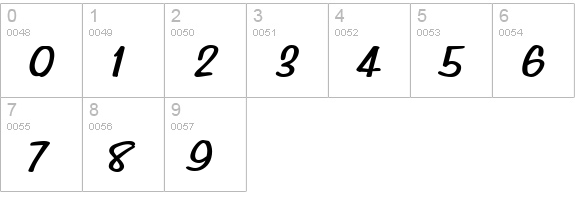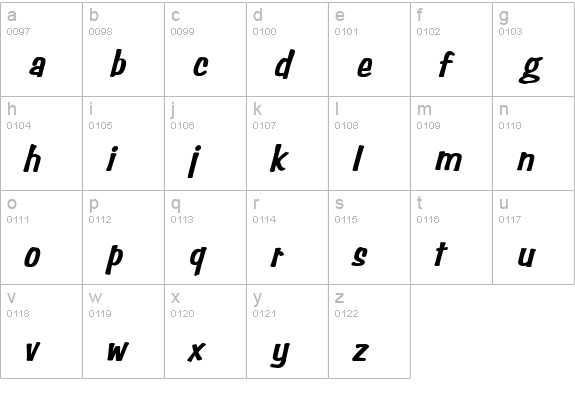
Simpson Heavy Italic is a heavy, high-impact, italic variant in the Simpson typeface family \xE2\x80\x94 well suited to high-impact headlines, posters, and display advertising.
Simpson Heavy Italic is a bold and dynamic font that exudes strength and power. With its slanted and heavy strokes, this font commands attention and makes a bold statement. It is perfect for headlines, logos, and any design that requires a strong and assertive presence. What sets Simpson Heavy Italic apart is not only its striking appearance but also the fact that it is freely available to download at FontsMarket.com. This means that designers, creatives, and anyone in need of a powerful font can access it without any cost. This font offers a high-quality and professional look, making it an excellent choice for both personal and commercial projects. Whether you are working on a poster, website design, or branding materials, Simpson Heavy Italic will add a touch of boldness and uniqueness to your work. Its carefully crafted letterforms and sleek italic design make it stand out from the crowd, leaving a lasting impression on viewers. With its versatility and free availability, Simpson Heavy Italic is a must-have addition to any font library. Its ability to convey strength, elegance, and modernity makes it suitable for a wide range of applications. Download Simpson Heavy Italic today from FontsMarket.com and elevate your designs to new heights with this exceptional font.